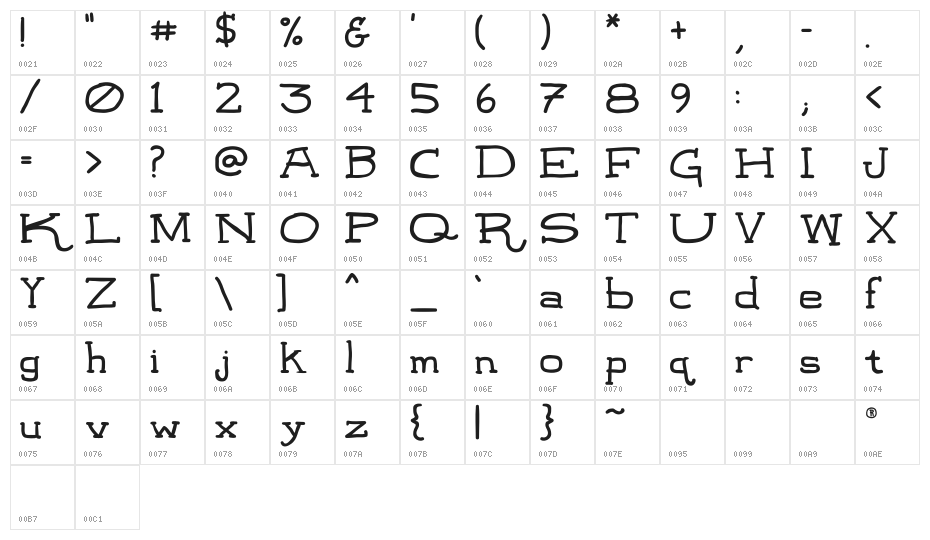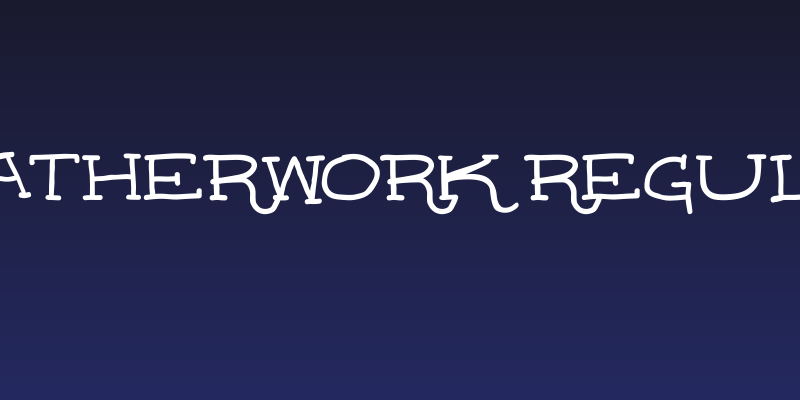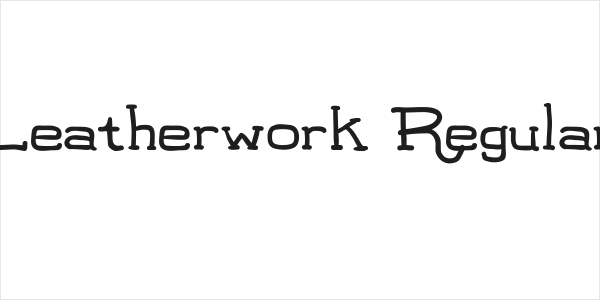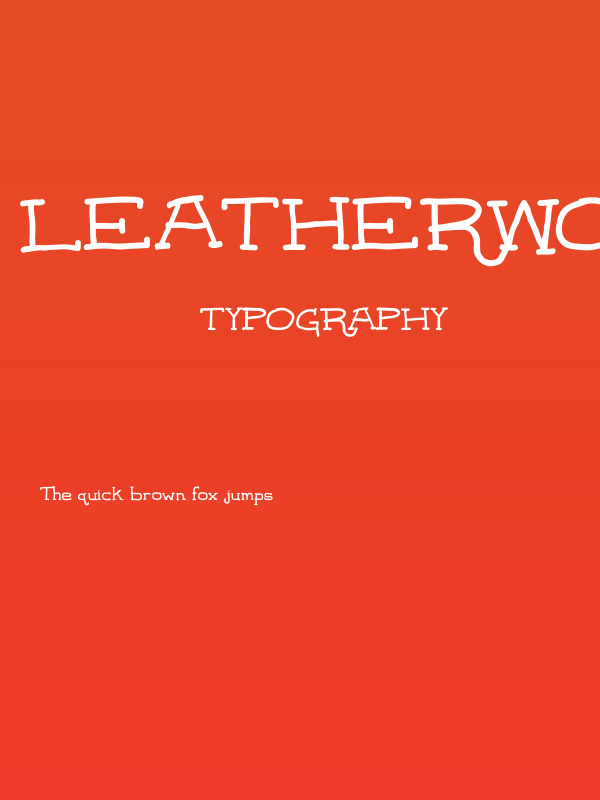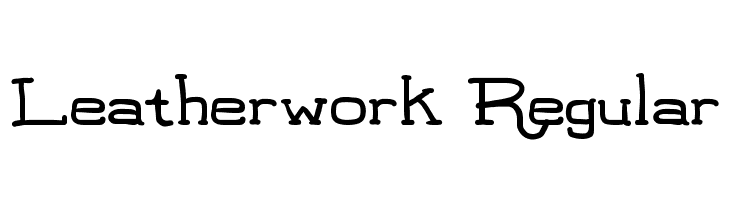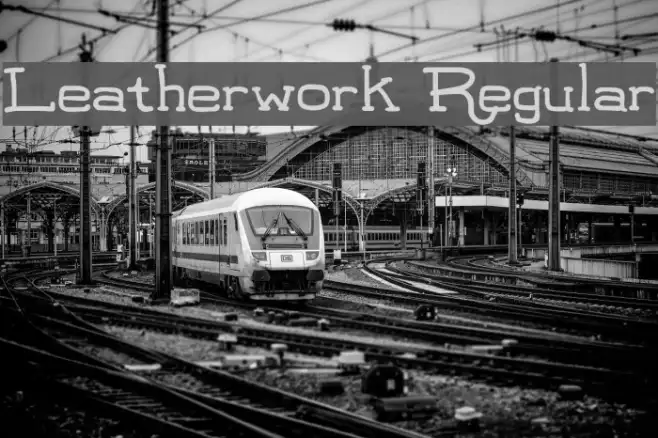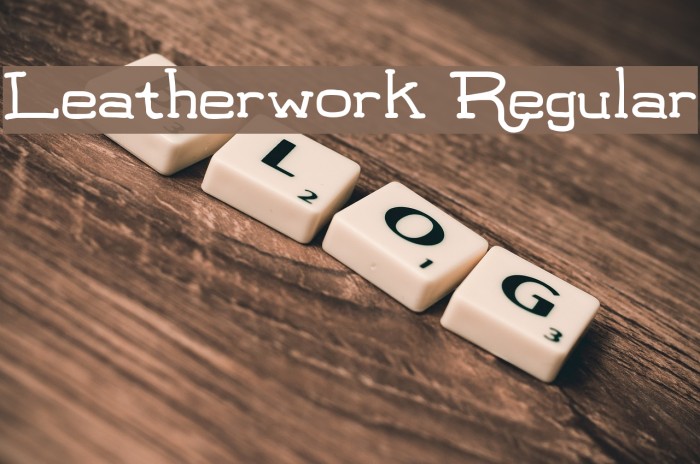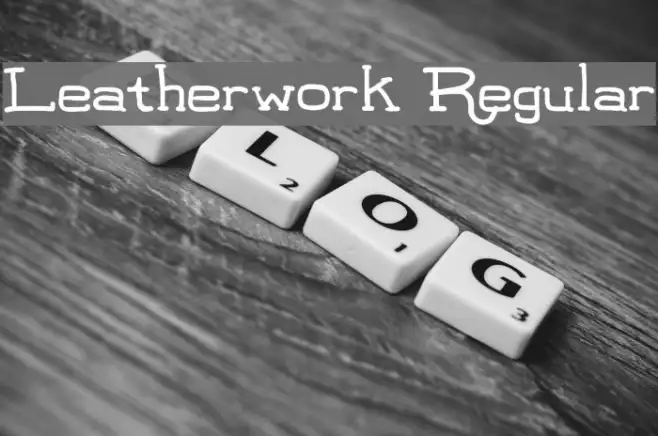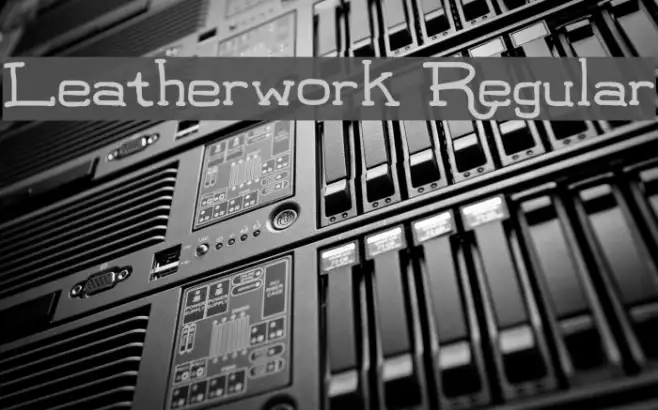
Leatherwork Regular Font
Leatherwork Regular Description
This font features a unique and playful design, characterized by its hand-drawn appearance and irregular strokes. The letters have a whimsical quality, with uneven lines and slightly exaggerated curves that give it a distinctive, handcrafted look. The uppercase letters are bold and prominent, while the lowercase letters maintain a consistent style, adding a touch of charm and personality. The numerals and special characters follow the same playful theme, making the font versatile for creative projects. Its overall style is reminiscent of vintage signage or artisanal crafts, perfect for adding a personal touch to any design.
| Proposed Projects | Ideal for craft projects, children's books, greeting cards, and playful branding. |